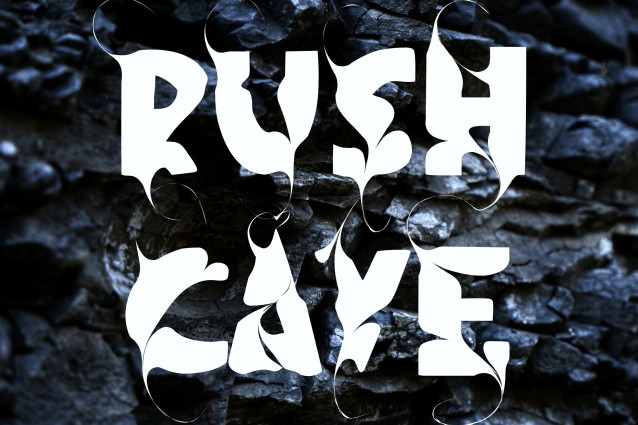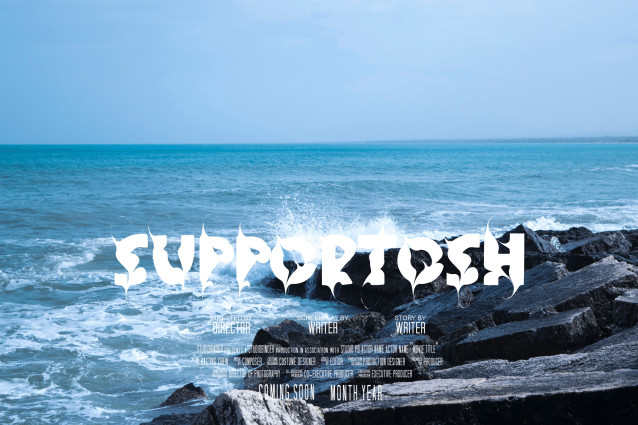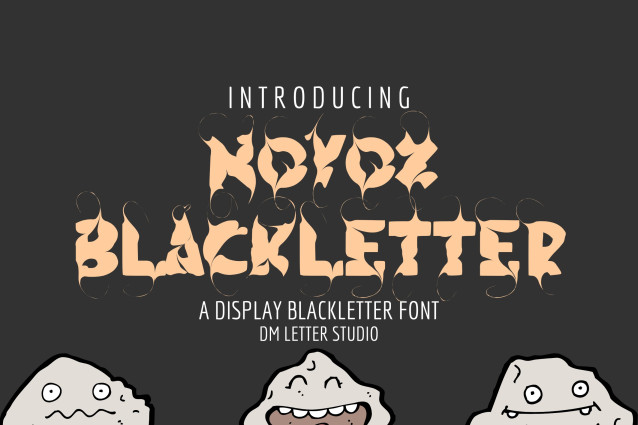
Novox Blackletter Font
Novox Blackletter Font is a powerful blackletter typeface that channels the striking and ornate aesthetic of medieval calligraphy with a modern edge. With its sharp serifs, intricate details, and heavy strokes, this font is ideal for making a strong impression in headlines, tattoo designs, gothic branding, band logos, apparel, and fantasy-themed projects.